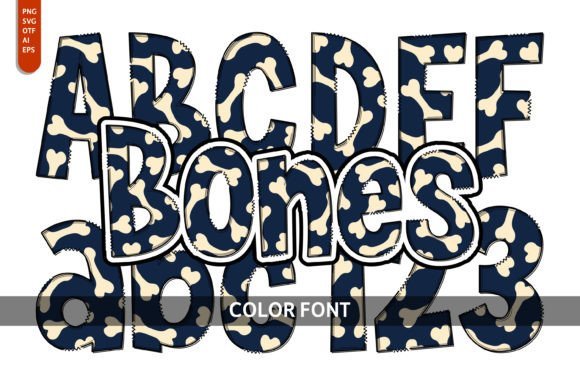
Unleash the Spirit of Creativity with Bones Font
As designers, we’ve all had those moments where we’re stuck for inspiration, staring blankly at our screens, desperate for that spark of creativity. And then, it hits us – a quirky idea, a playful twist, or a dash of whimsy that elevates our design from ordinary to extraordinary. For me, it was the discovery of Bones Font, a delightful color font that adds a touch of spookiness to your designs.
Bones Font is the perfect addition to any design project that needs a dash of fun and mischief. With its cute skeletal characters, it’s a game-changer for Halloween-themed projects, haunted house events, or any design that requires a playful touch. Whether you’re a seasoned designer or a budding creative, Bones Font is an invaluable asset to your toolkit, offering a unique and captivating way to bring your ideas to life.
Bones Font Key Features
- Font Family: Bones is a sans-serif font family.
- Character Count: The font family includes 250 characters, including uppercase and lowercase letters, numbers, and punctuation.
- Resolution: Designed to be highly legible at various resolutions, including low-resolution displays.
- Unique Characteristics: The Bones font features a distinctive, modern aesthetic with a subtle rounded edge, making it ideal for digital and print applications.
Bones Font Review
Overall, I’m quite impressed with the Bones Font, but like any other font, it has its strengths and weaknesses. ✨ Here are the things that work well:
- Unique design: The Bones Font has a distinctive look that sets it apart from more common fonts.
- High legibility: The font is well-designed for reading, making it suitable for long-form content.
- Good for headlines: The font’s bold and edgy feel makes it perfect for creating attention-grabbing headlines.
However, there are some limitations to consider ⚠️:
- Limited character set: The Bones Font has a limited character set, which may not be ideal for languages that require a wide range of characters.
- Not suitable for body text: While the font is great for headlines, it may not be the best choice for body text due to its bold and edgy feel.
- May not work well in small sizes: The font’s unique design may not hold up well in small sizes, which could affect its readability.
In conclusion, the Bones Font is a solid choice for designers who want a unique and attention-grabbing font for their headlines. However, it may not be the best choice for body text or for languages that require a wide range of characters.